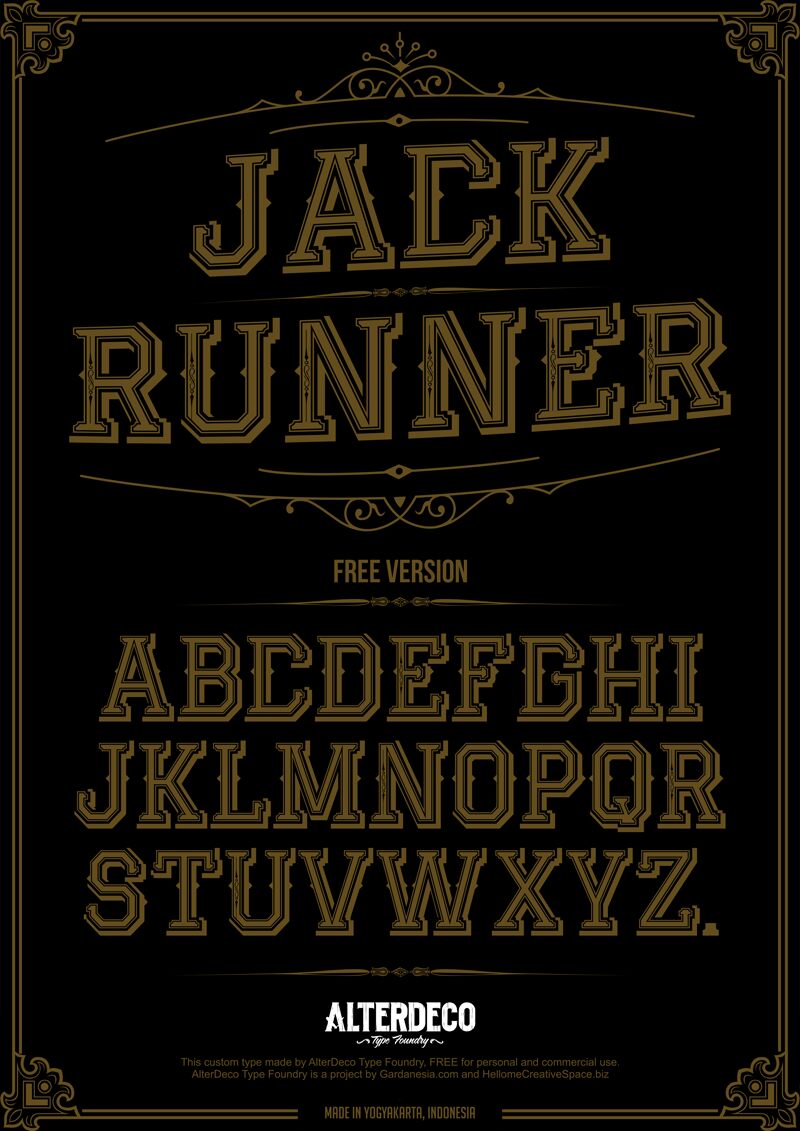
Jack Runner is a free retro 3D display font with the swagger of nineteenth-century circus and saloon lettering. Tall capitals combine broad slab serifs, inset contour lines, and dark offset shadows. Small diamond points and split interior strokes sharpen the ornamental effect.
Designers working on Western entertainment or vintage-themed hospitality can use it for event posters, bar branding, and merchandise. The layered letters connect with engraved borders, playing-card illustrations, and period signage, letting the type become part of the artwork.